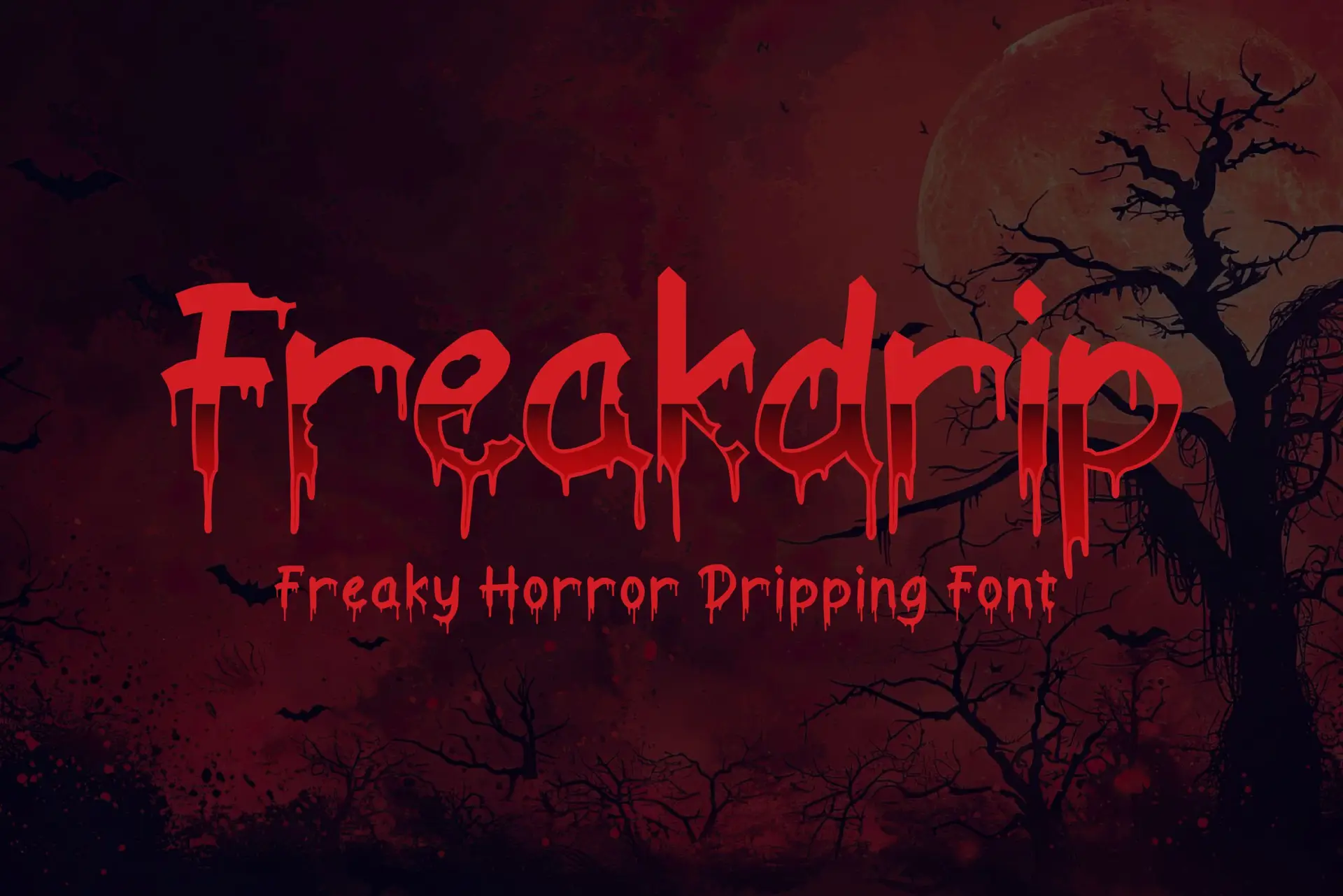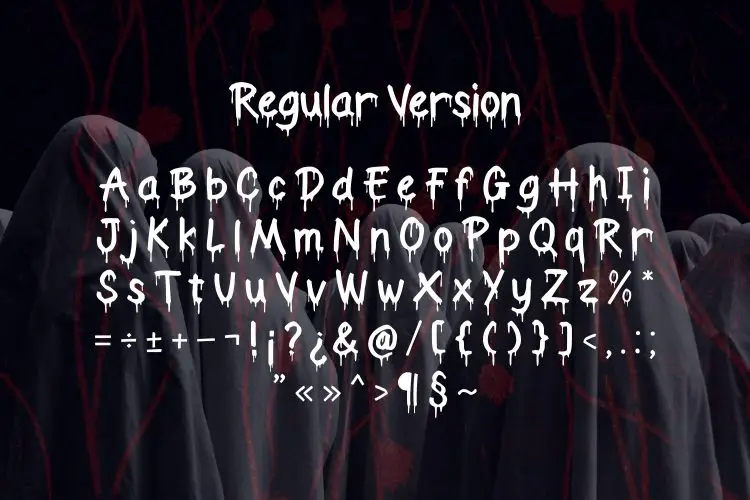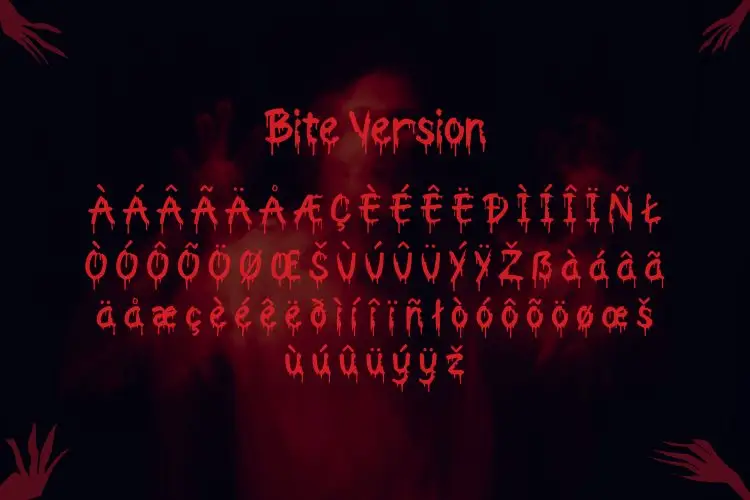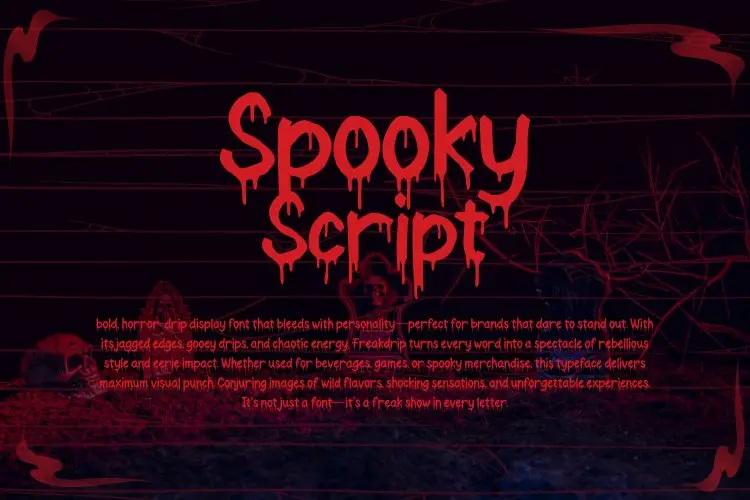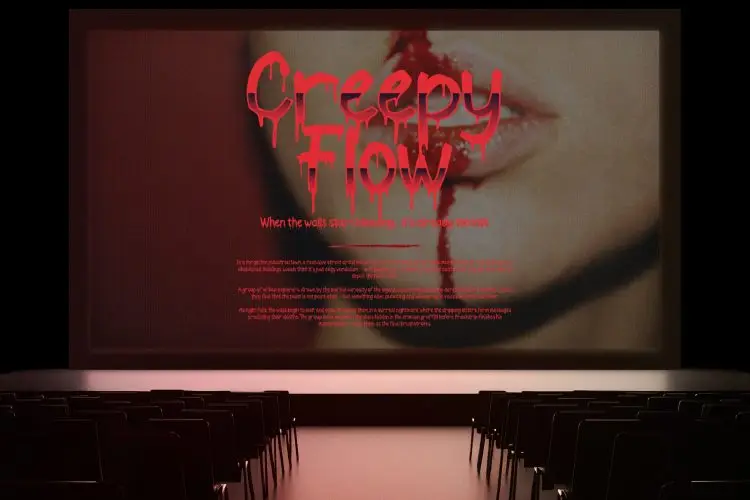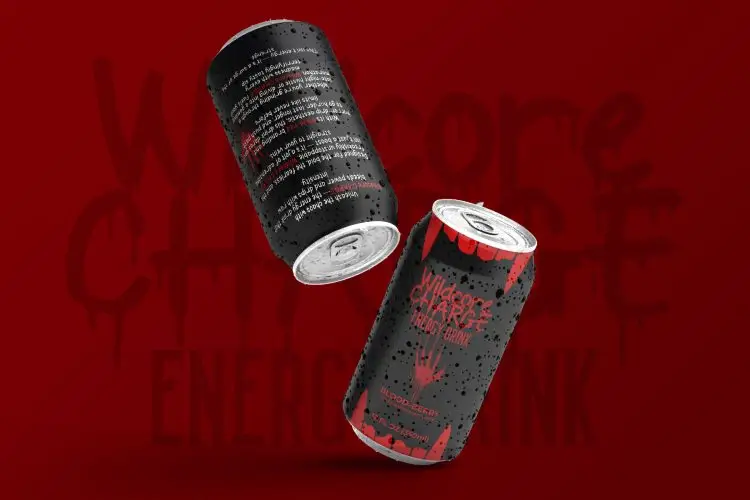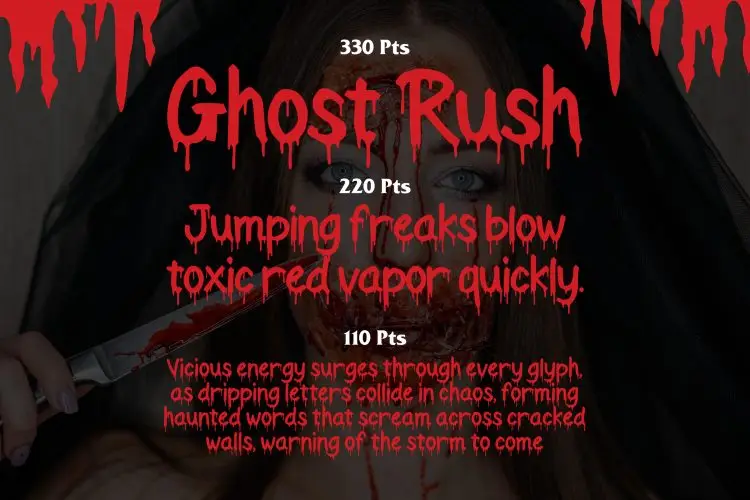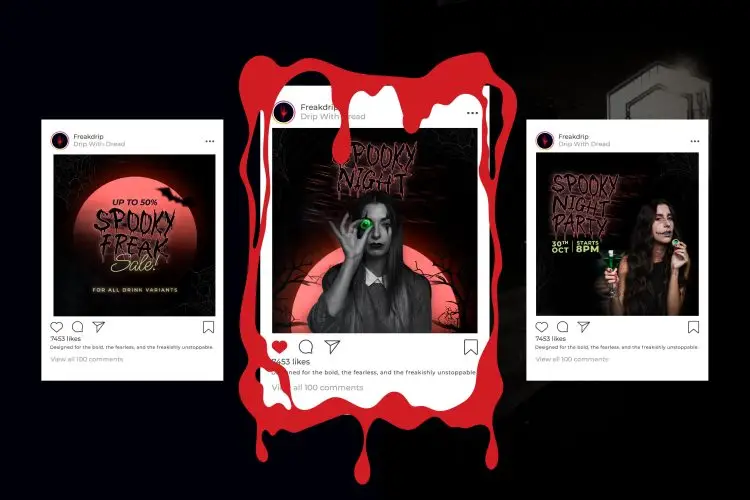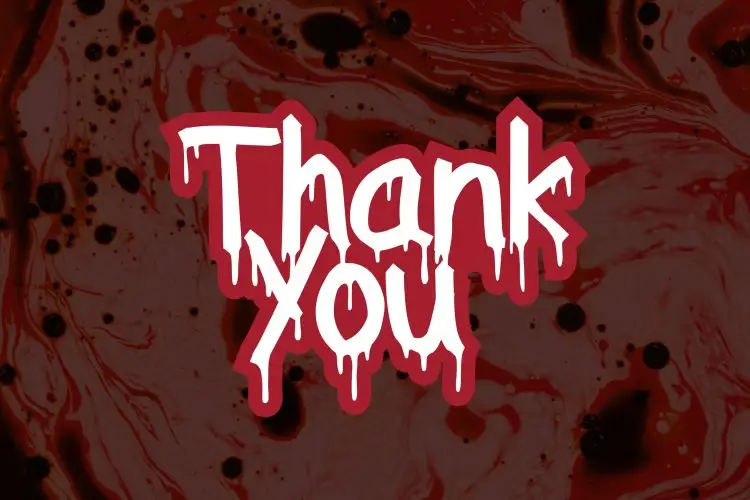
Freakdrip – Freaky Horror Dripping Font
Freakdrip
Freakdrip Bite
Freakdrip is a freaky horror dripping font that oozes with personality. Its bold, liquid-like letterforms create a creepy, edgy, and thrilling vibe—perfect for designs that need to look spooky and unforgettable. The dripping effect adds a touch of grunge and gore, making it a must-have for Halloween projects, horror branding, and viral meme designs.
• Style & Vibe: Freaky, dripping, horror, and edgy
• Letterform Structure: Bold display type with liquid drip details
• Intended Market: Horror event organizers, Halloween product designers, meme creators, and edgy streetwear brands
• Best Uses: Halloween posters, spooky invitations, horror movie titles, scary social media graphics, creepy t-shirt prints
Want a font that screams freaky from the first glance? Freakdrip delivers dripping, horror-inspired letters that instantly set the tone for spooky events, viral memes, and eye-catching designs. It’s not just a font—it’s your ticket to creating fear-inducing, scroll-stopping visuals.
Why Creatives Choose Freakdrip:
• Creepy & Dripping Effect – Perfect for horror and spooky designs
• Bold Display Power – Grabs attention from any distance
• Halloween-Ready – Instantly sets a scary, eerie mood
• Versatile in Horror Themes – Great for posters, merch, and online graphics
• Unique Freaky Style – Makes your designs stand out in a crowded feed
Don’t settle for kinda scary—go full freaky with Freakdrip! Add this dripping horror font to your creative arsenal today and make your next project truly spine-chilling.
Spooky, Creepy, and Perfectly Drippy